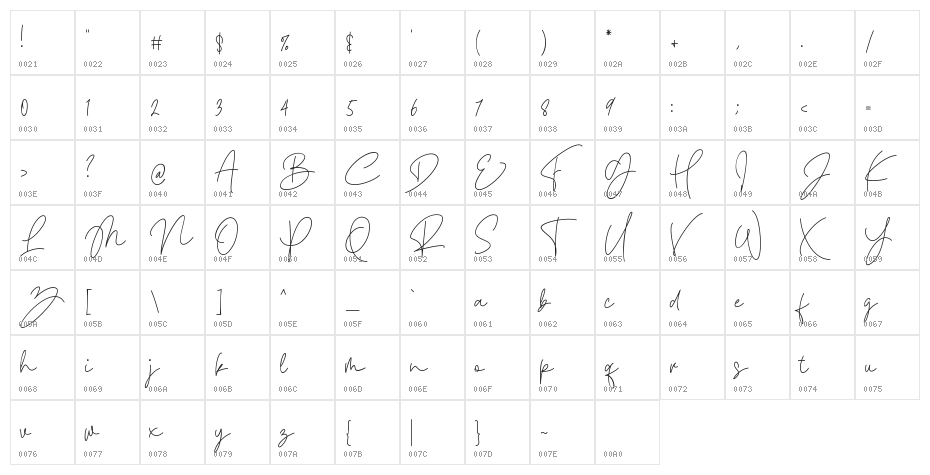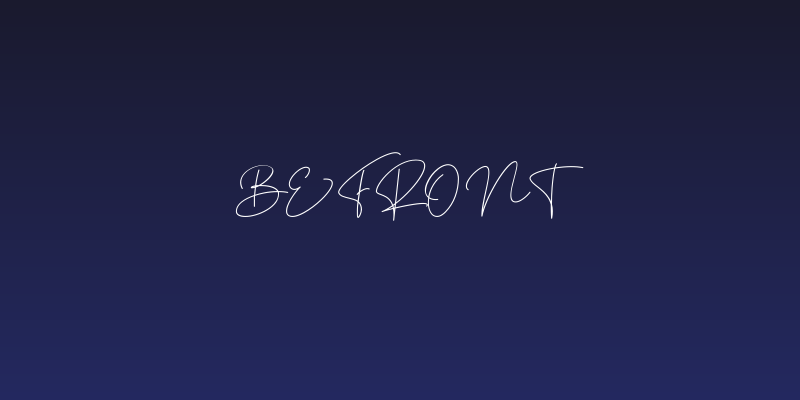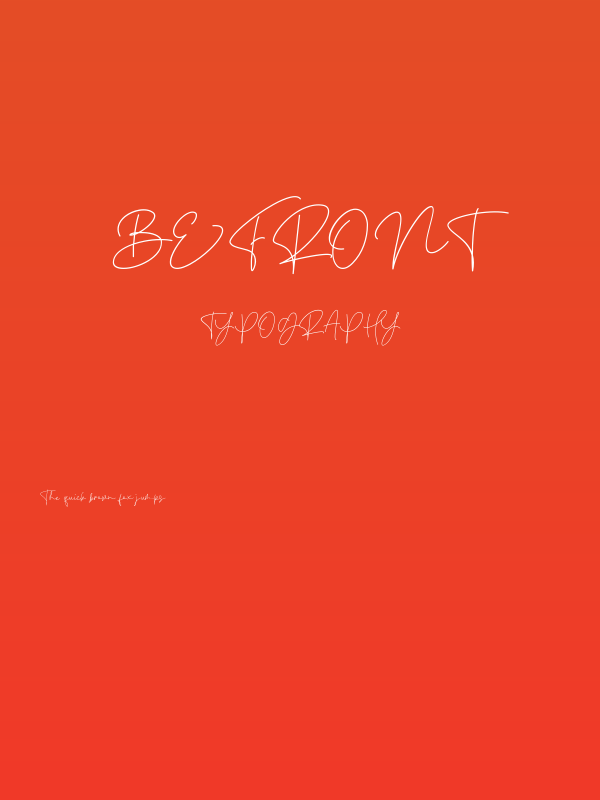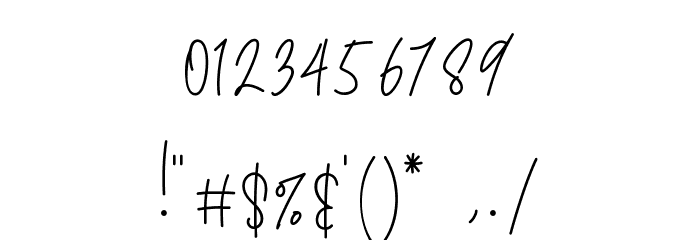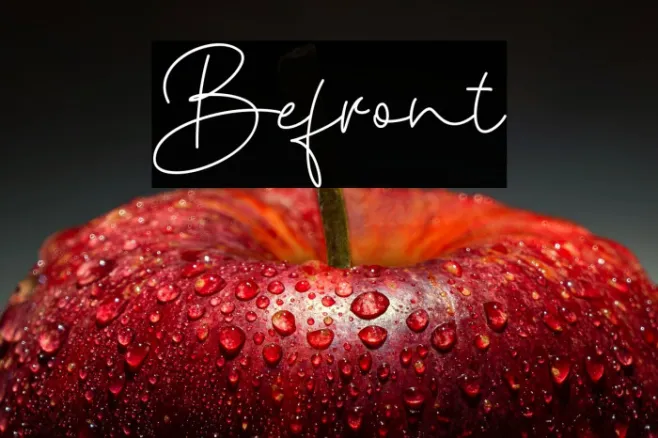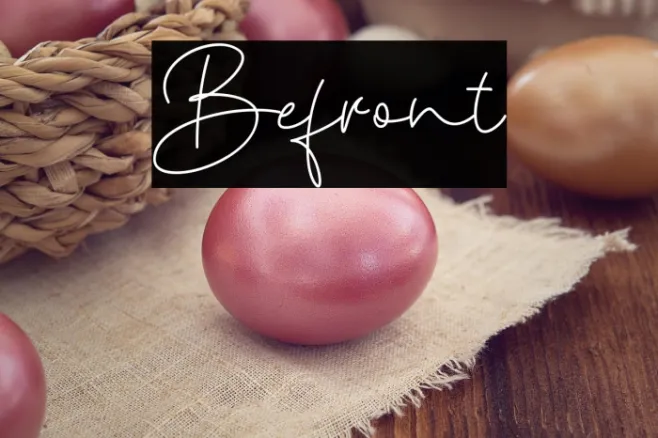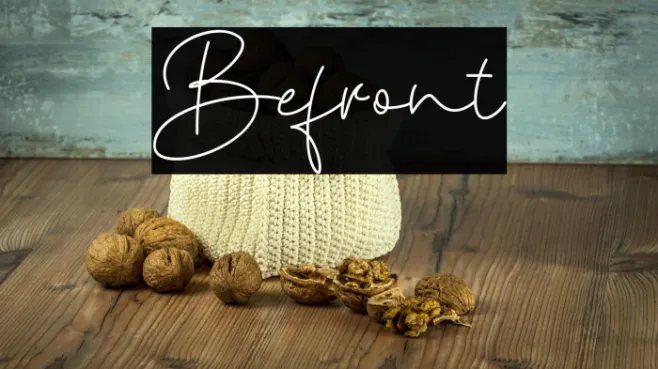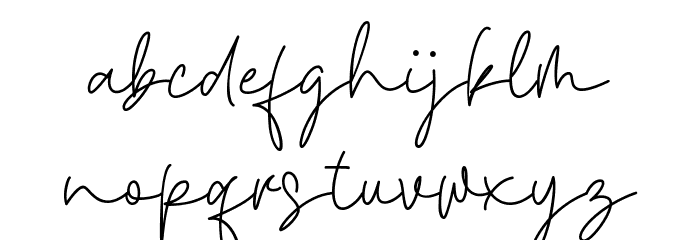
Befront Font
Befront Description
This font features a fluid and elegant handwritten style, characterized by its smooth, flowing lines and natural curves. The uppercase letters are slightly more structured, while the lowercase letters exhibit a more casual, freeform appearance. The numerals and special characters maintain the same graceful aesthetic, making the font versatile for various design needs. Its overall appearance is both sophisticated and approachable, ideal for adding a personal touch to any project.
| Use Case | Logos, Invitations, Social Media |
| Proposed Projects | Ideal for wedding invitations, greeting cards, personal branding, and social media graphics. |